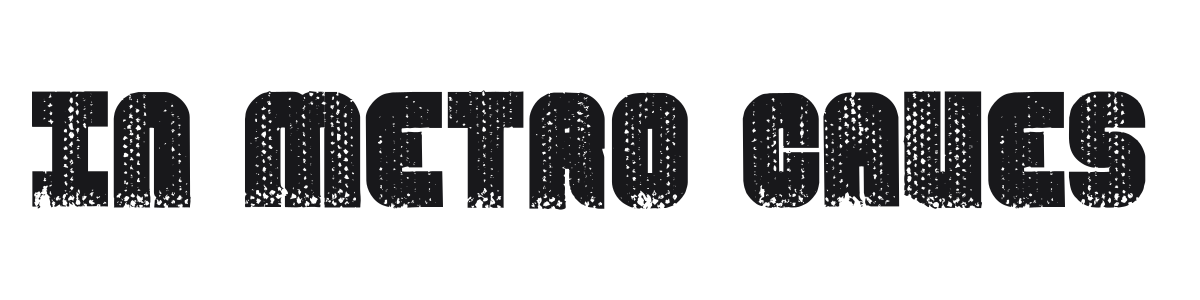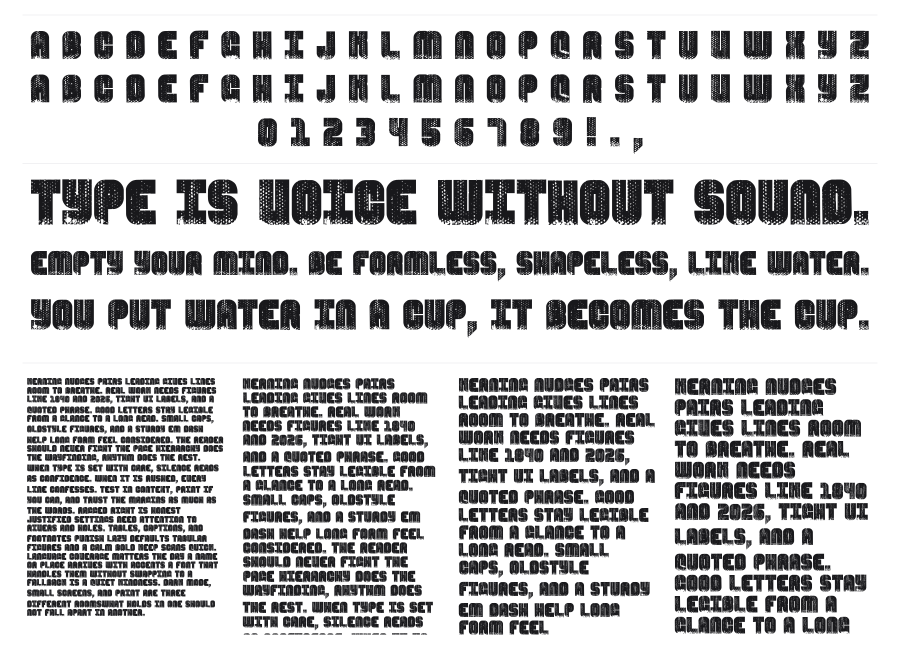
In Metro Caves
In Metro Caves is a heavy condensed display font eaten away by a halftone dot erosion pattern that recalls worn concrete, stenciled walls, or degraded signage. The blocky rounded letterforms underneath read as solid and authoritative, while the distressing pulls them into something more raw and urban. It carries an underground energy that works well for music, gaming, and street-culture branding.